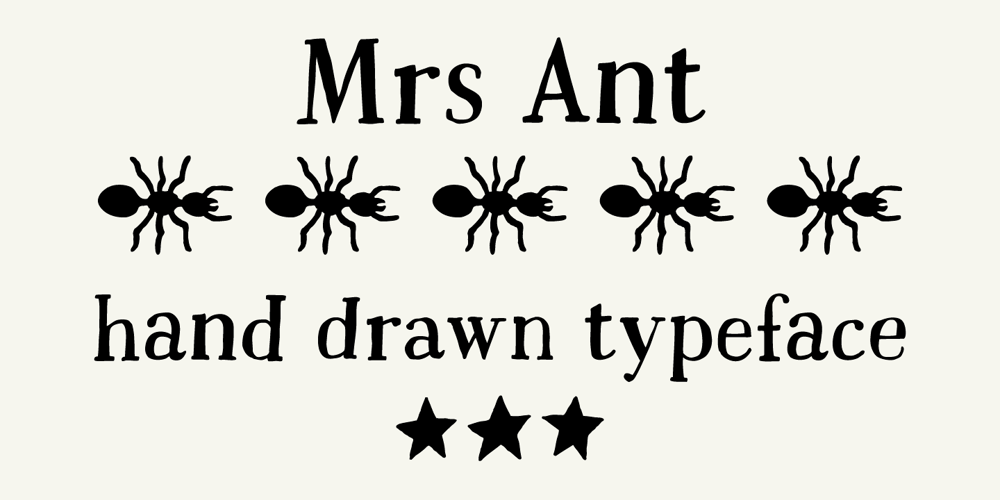
Mrs Ant Font Family was designed by Aleksandra and Daniel Mizielińscy and published by Hipopotam Studio. Mrs Ant contains 1 styles and family package options. Hand drawn serif typeface designed for one of our books. It has upper and lowercase characters with up to three alternate glyphs. Build in OpenType Contextual Alternates feature will automatically set alternate glyphs depending on frequency of appearance of the same character (even in web font but only in HTML5 browsers). The script doesn’t throw random glyphs. For example in the word “HIPPOPOTAMUS” you will automatically get three different “P” glyphs and two “O” glyphs. It really works great but of course you can always fine tune it by hand. Mrs Ant has an older brother. Mr Anteater was designed for headers for the same book.